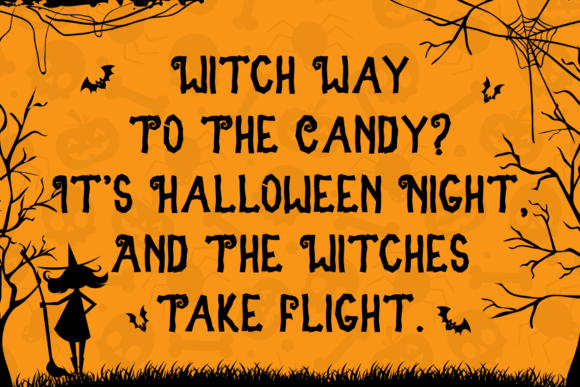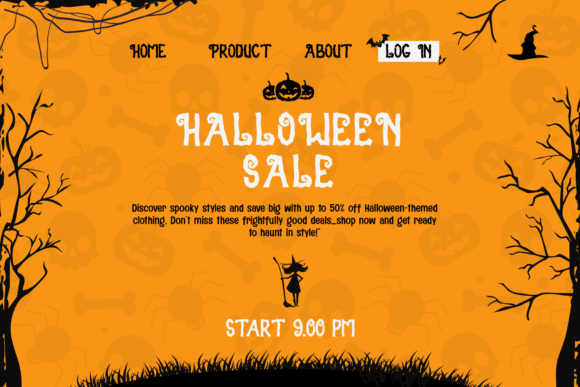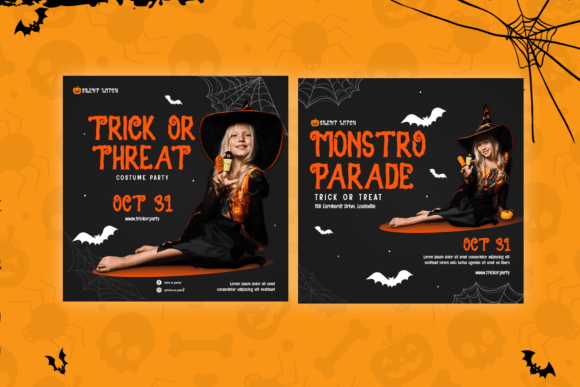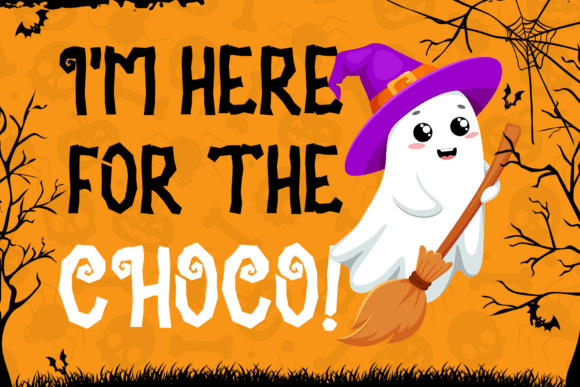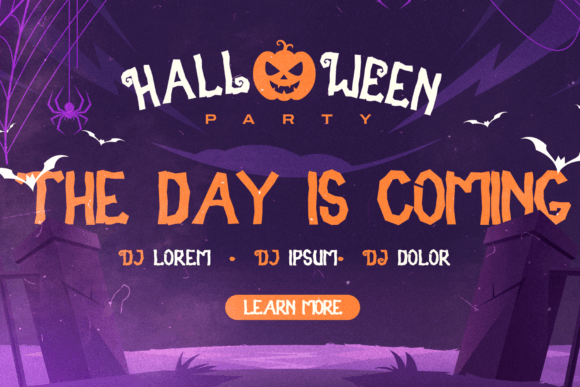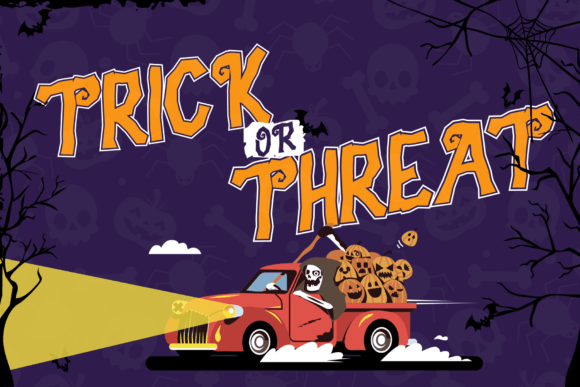
Introduction to Silent Witch Font Font
Fonts play a crucial role in design, and the Silent Witch Font font is a typeface that brings both character and versatility to any project. Whether you’re working on a branding project, a website, or a print design, the Silent Witch Font font offers a unique style that can elevate your work.
Introducing Silent Witch, an enchanting display font sure to cast a spell this Halloween season.
This unique font effortlessly couples the thrill of creepiness with an appealing whimsical charm Every uppercase letter comes beautifully fashioned with fanciful curls, granting **Silent Witch** an irresistible allure that does not shy away from making a statement.
The Silent Witch Font font is more than just a typeface – it’s a design tool that helps you communicate your message with style and clarity. Its unique character set and versatile design make it suitable for a wide range of applications, from elegant invitations to bold headlines.
With its carefully crafted letterforms and balanced proportions, the Silent Witch Font font ensures readability and visual appeal across all mediums.
The Silent Witch Font font stands out with its unique design, exceptional readability, and versatility across various design applications.